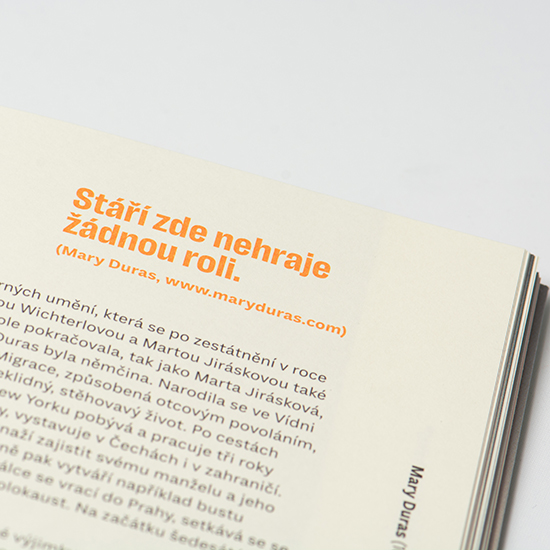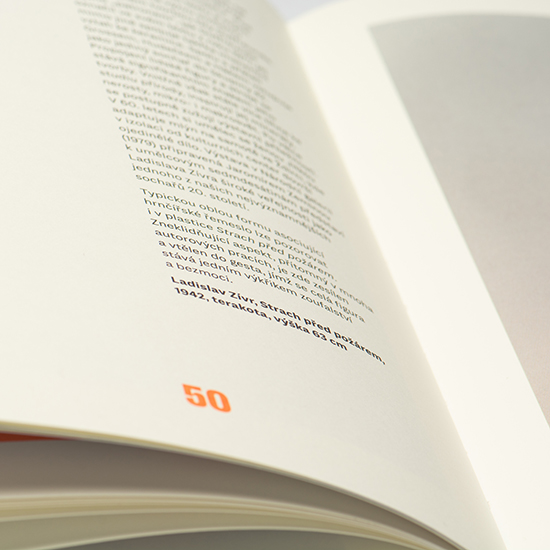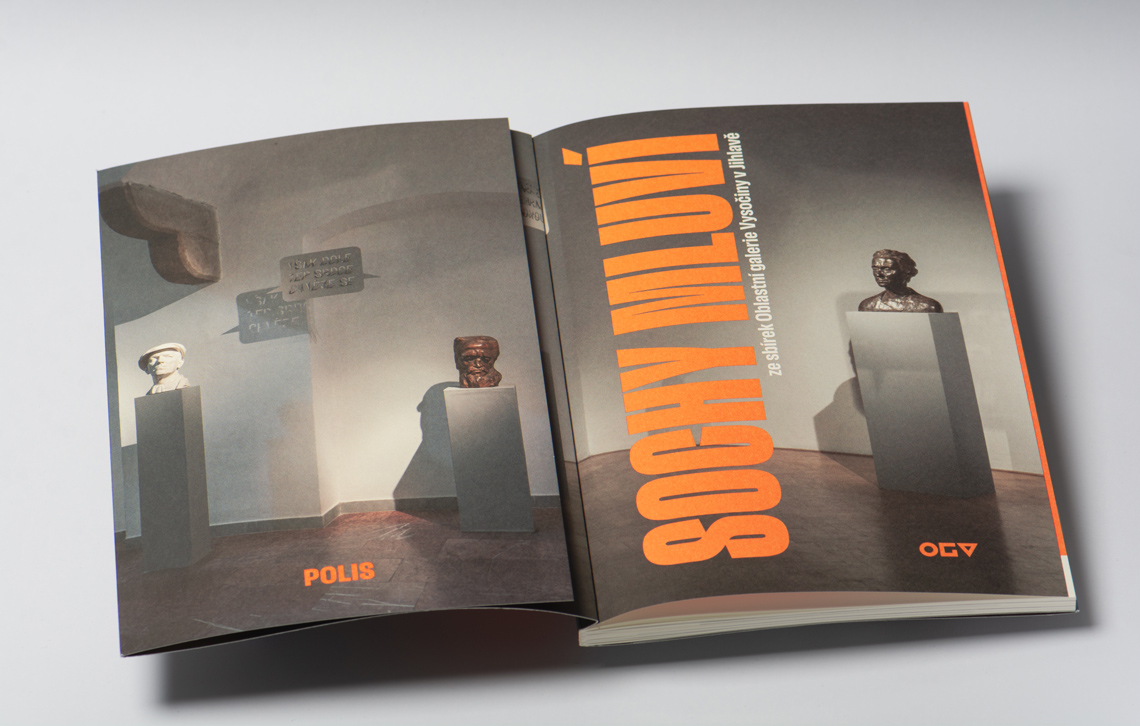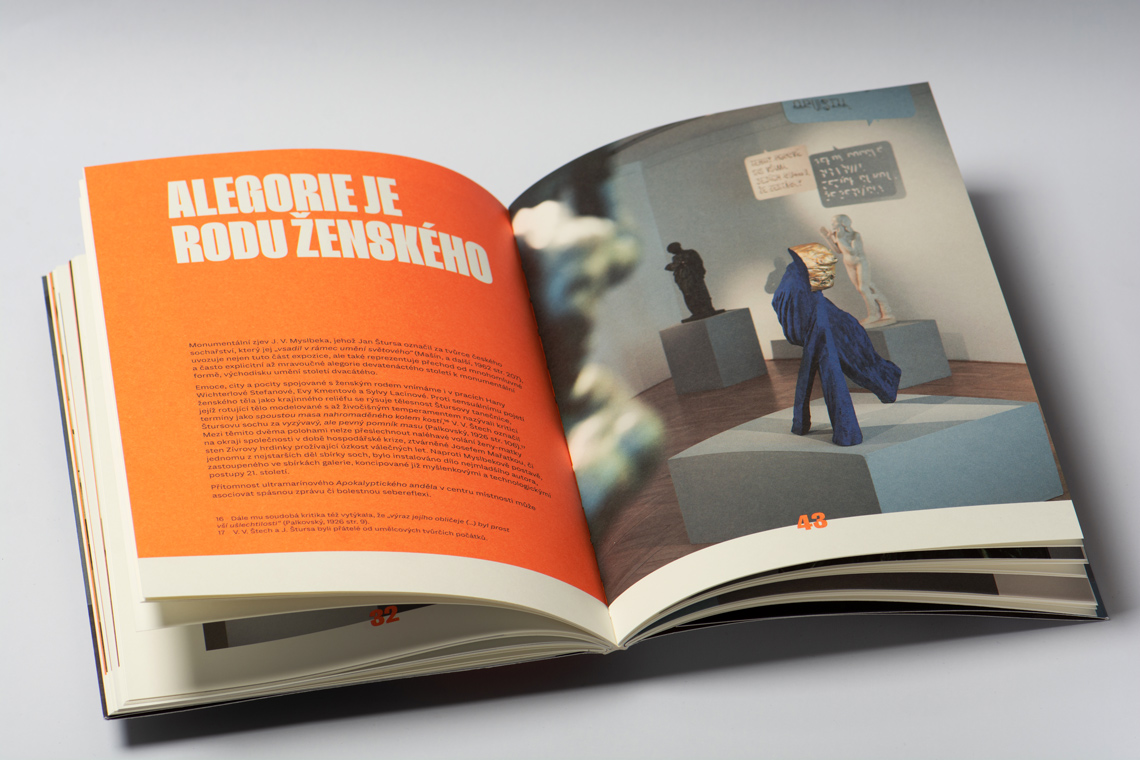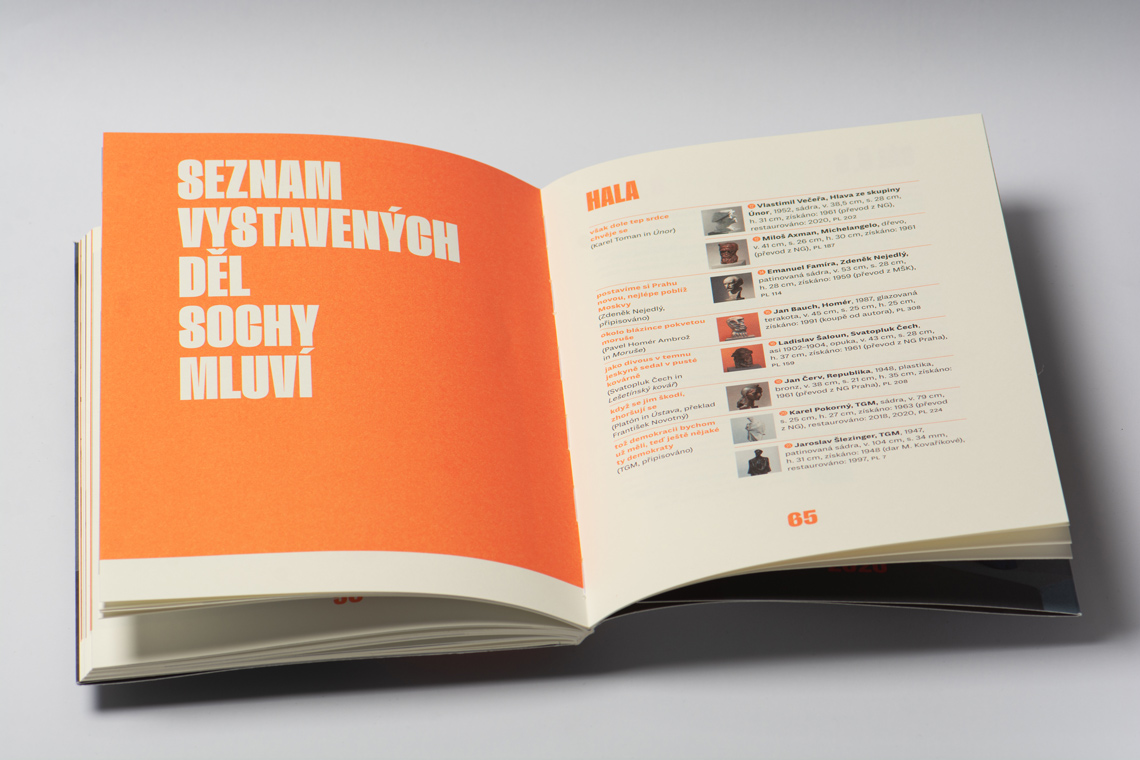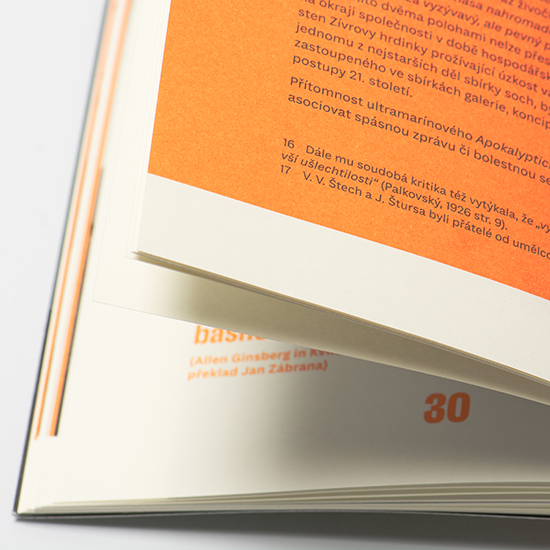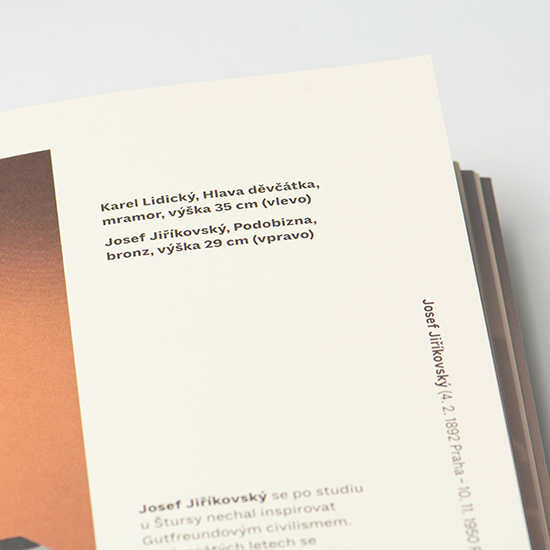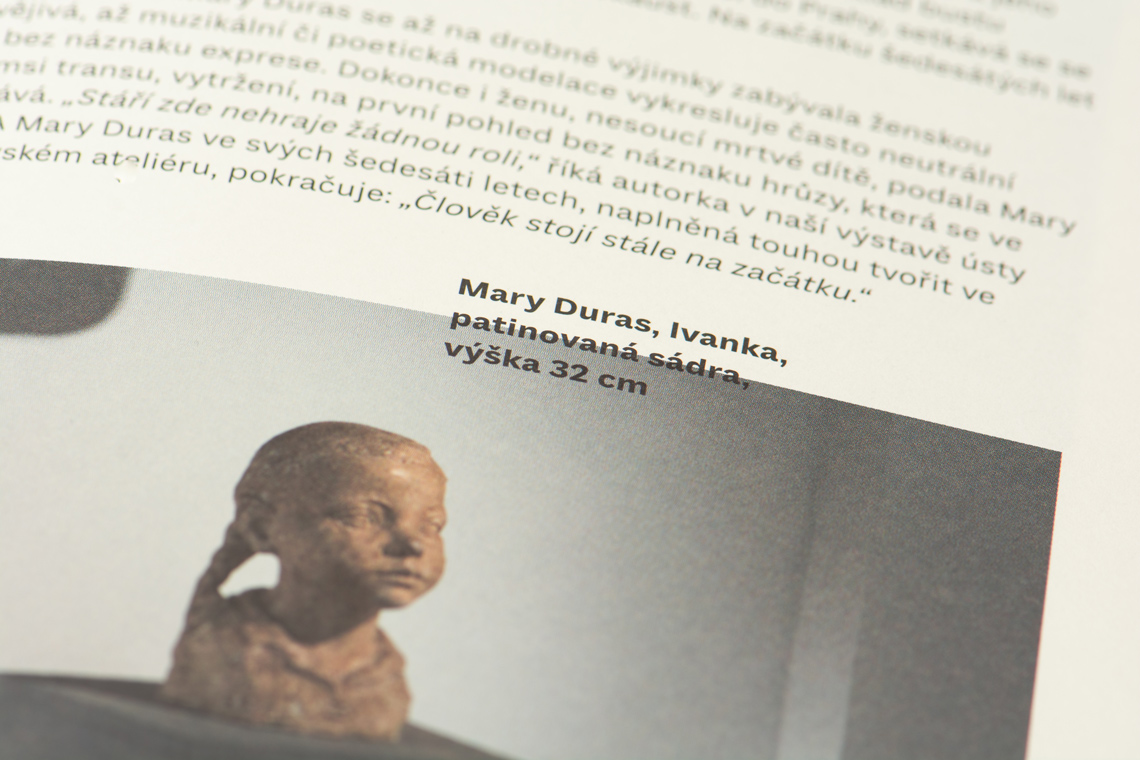
Lektorat preserves Czech sculptures
Ilona Staňková, curator for Regional Gallery Vysočina in Jihlava’s, has preserved “The sculptures speak” exhibition in book format. Filip Blažek chose Lektorat for its perfect fit with the brilliant sculpture photography.
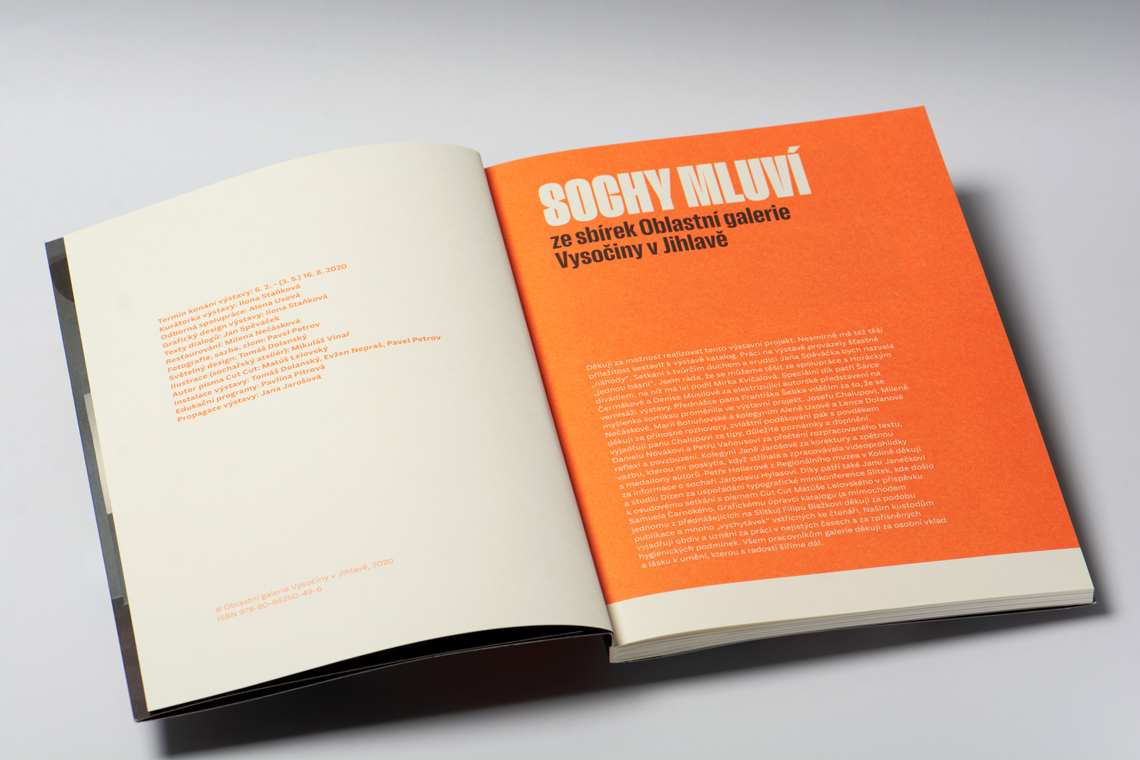
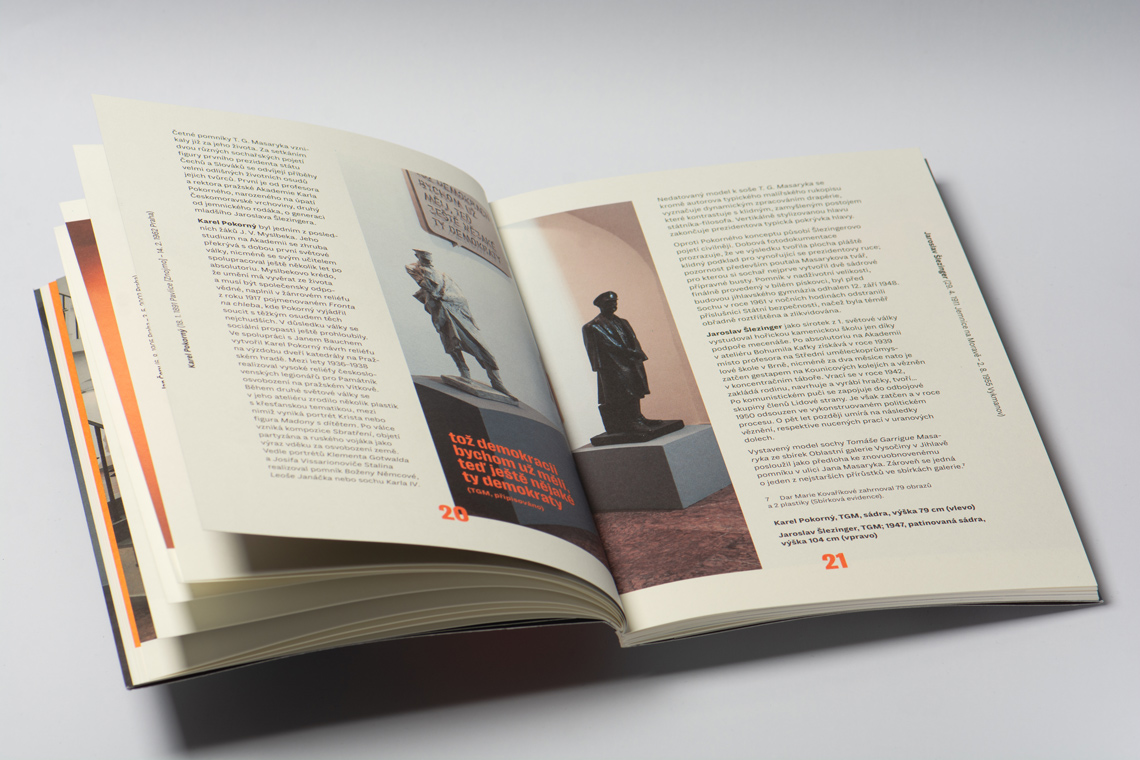
Regional Gallery Vysočina in Jihlava owns a small but representative collection of modern Czech sculptures. Unfortunately due to the Covid-19 lockdown, the exhibition was opened to the public for a shorter period of time than expected. The curator of the exhibition, Ilona Staňková, wanted to preserve the exhibition Sochy mluví (Sculptures Talk) in a book form and asked Filip Blažek to design it.
He explains that the intention was to express the atmosphere of the exhibition  and the space arrangement by way of graphic elements. “I wanted to use a simple sans serif typeface for the body text and a more expressive font for headlines. I tried Lektorat and I immediately knew this is the font I was looking for! Text styles have very nice texture and a subtle historical element. While the headline fonts, especially the heaviest styles, have a lovely and distinctive character perfectly fitting the brilliant photos of sculptures.”